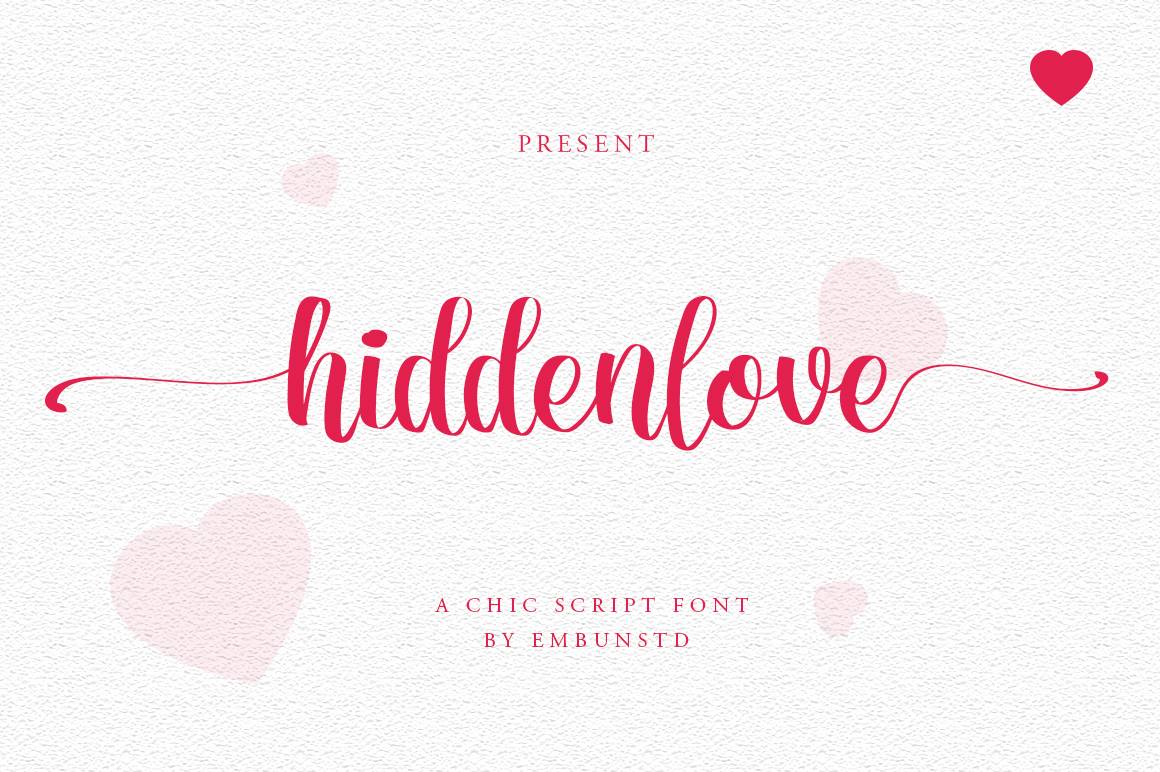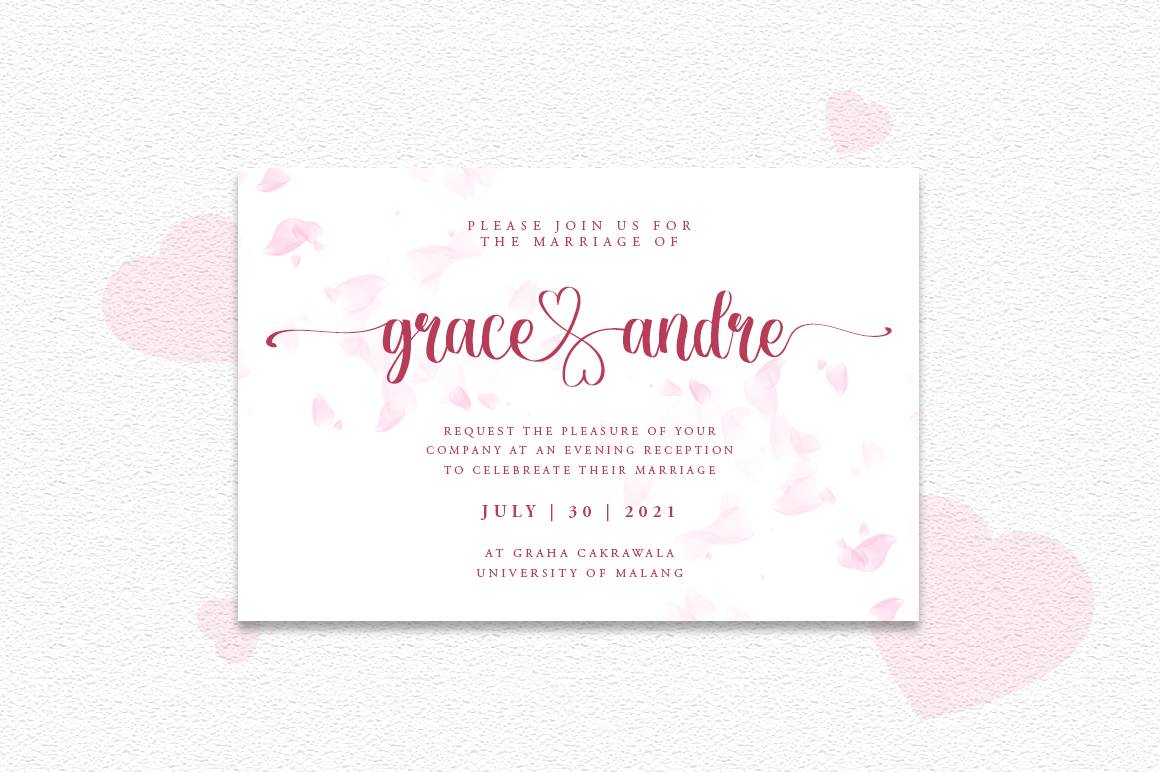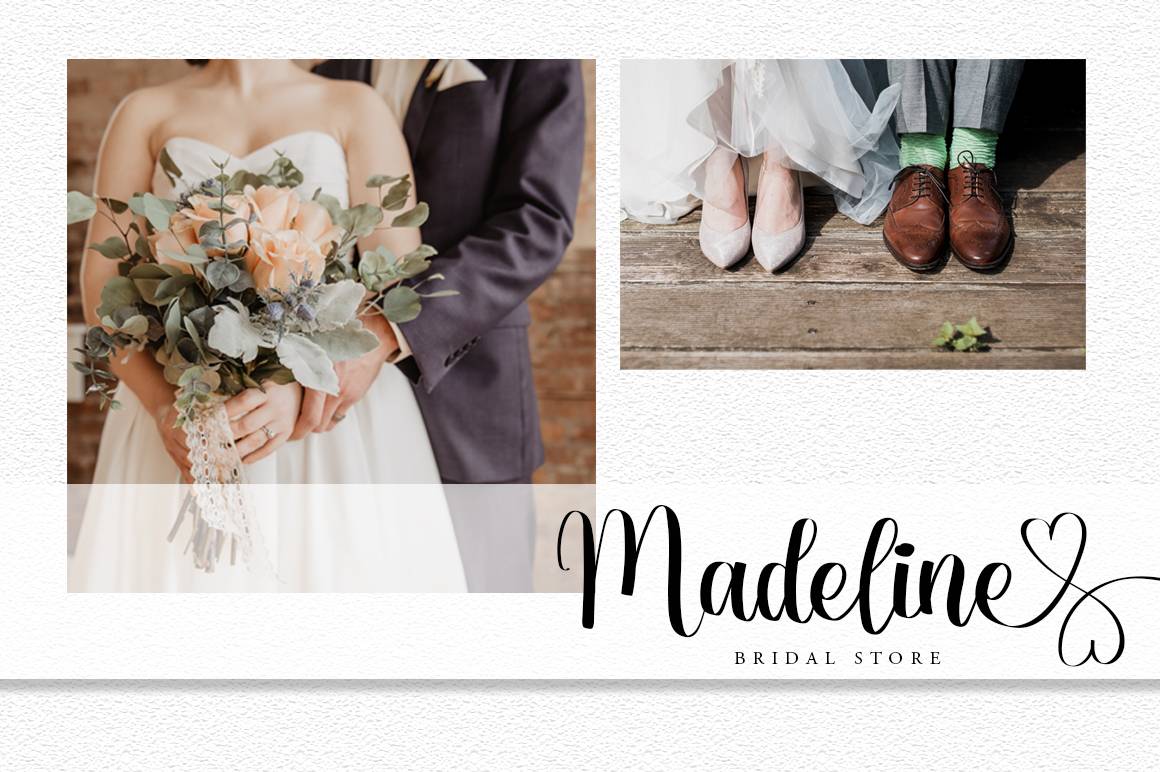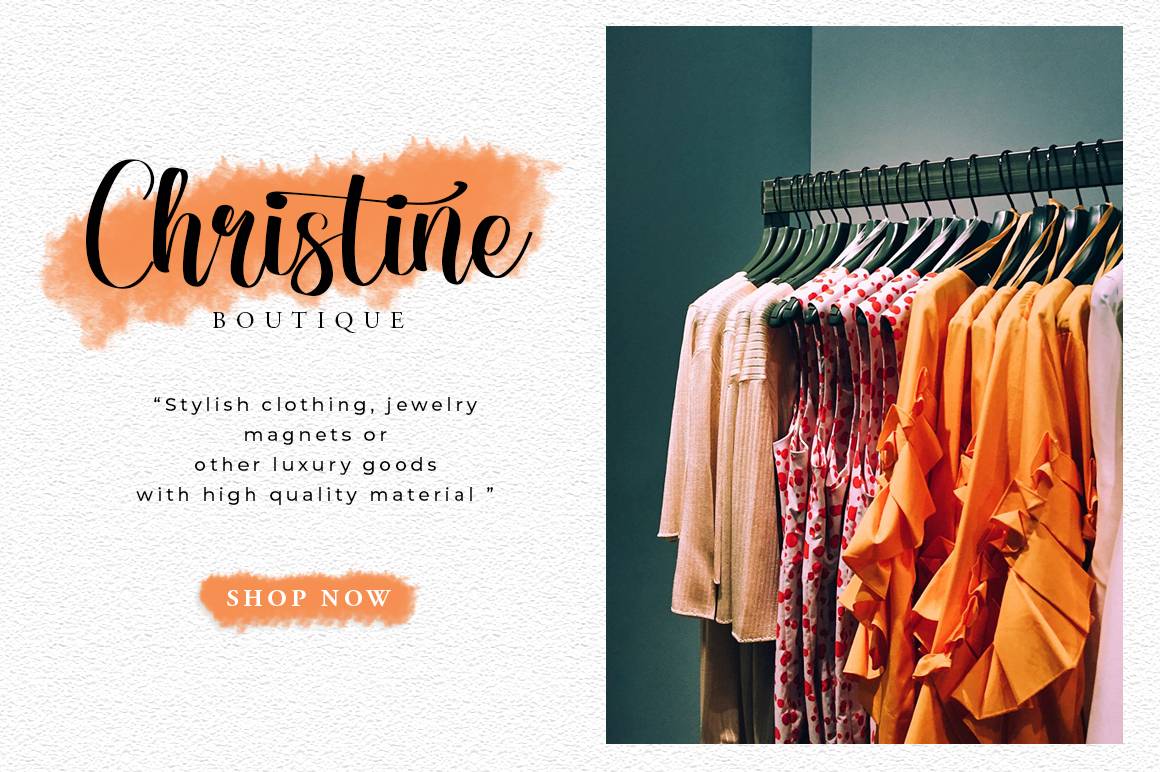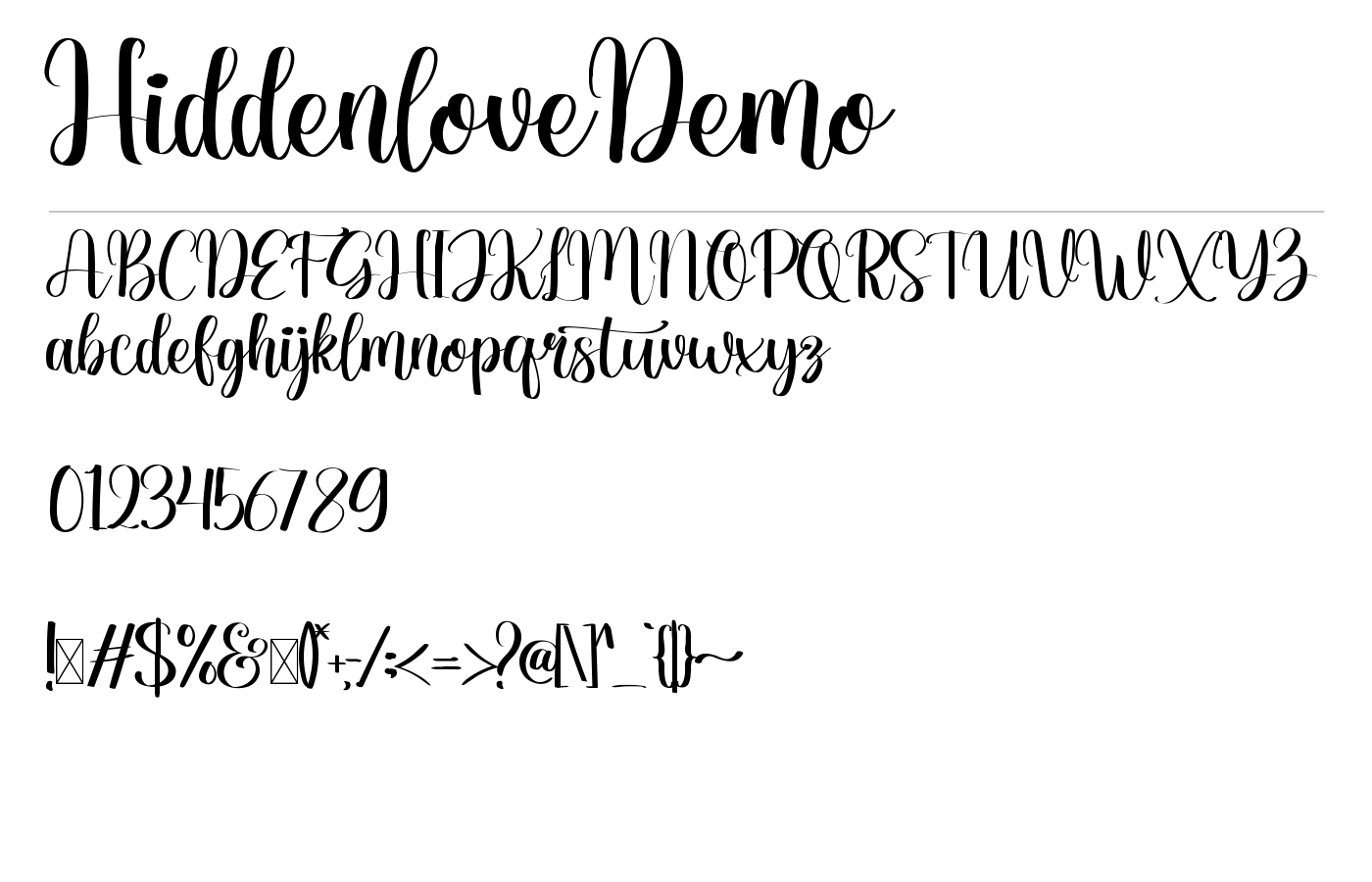
Hiddenlove is a graceful script font with elegant, flowing letterforms that combine thick and thin strokes to create a stylish and romantic feel. Its playful yet sophisticated design makes it perfect for invitations, branding, and headlines where a touch of charm and femininity is desired. This font works best in creative projects that seek a warm, personal, and uplifting atmosphere.
Hiddenlove Font
About Hiddenlove Font
| Font family | Hiddenlove Font |
| Release date | 2020-08-20 |
| Designer | Aditya Rezki |